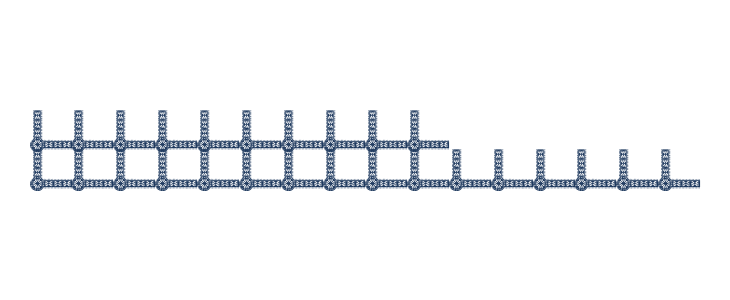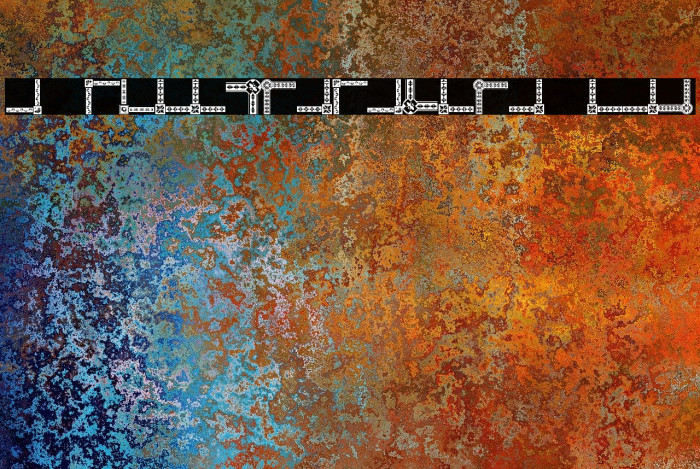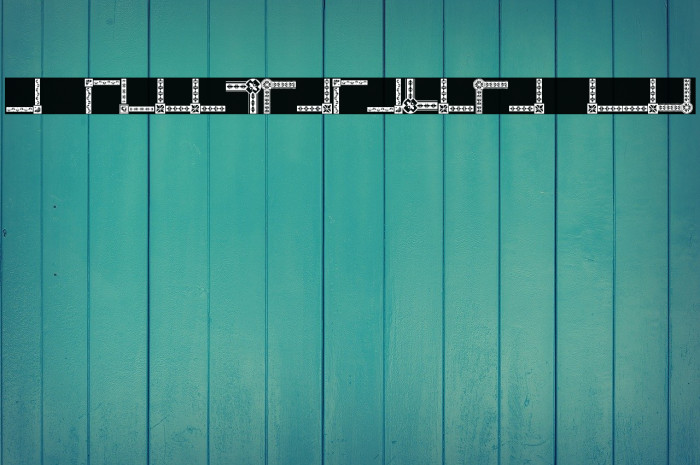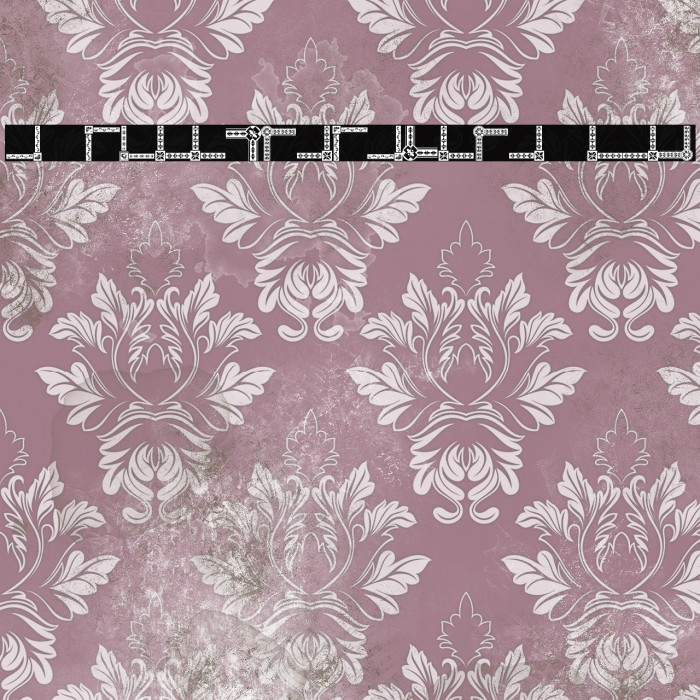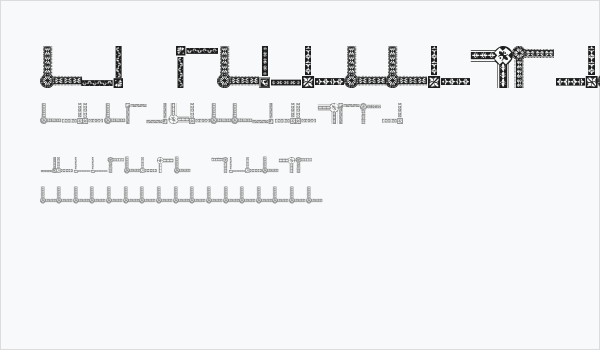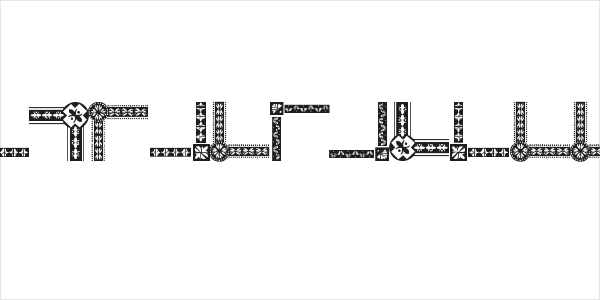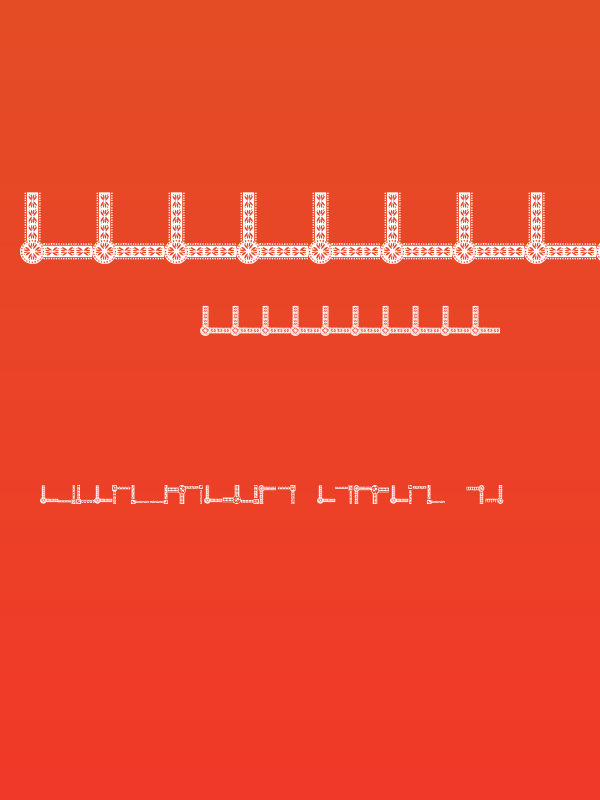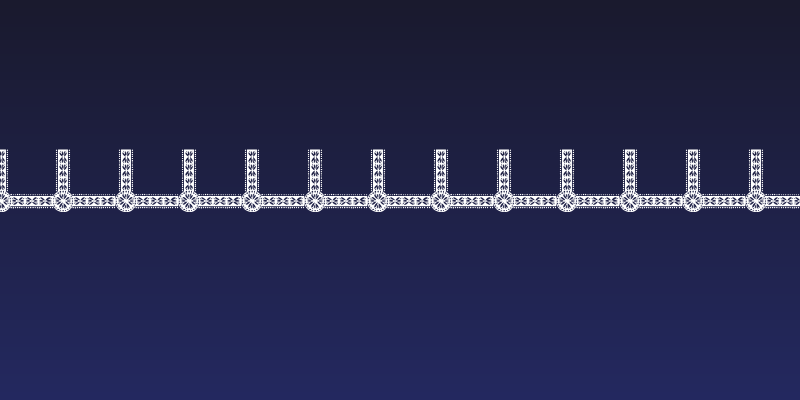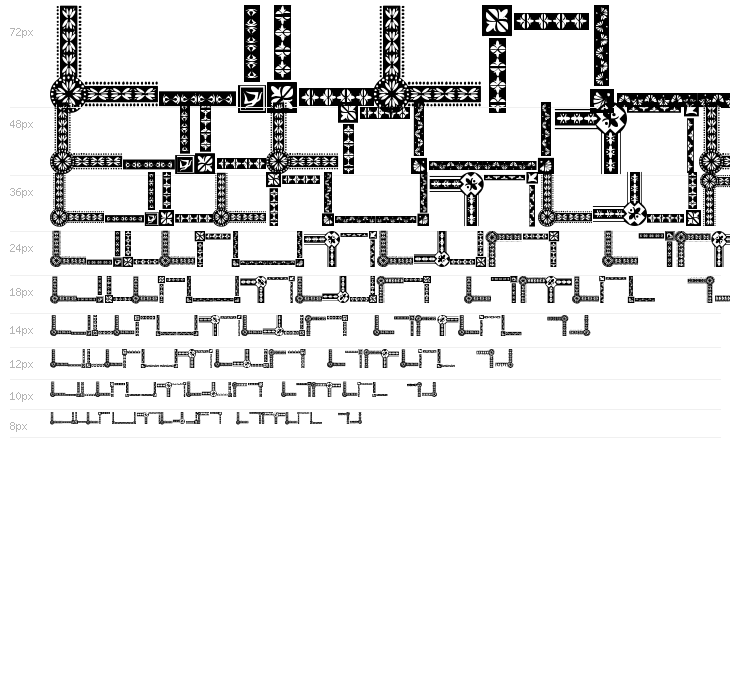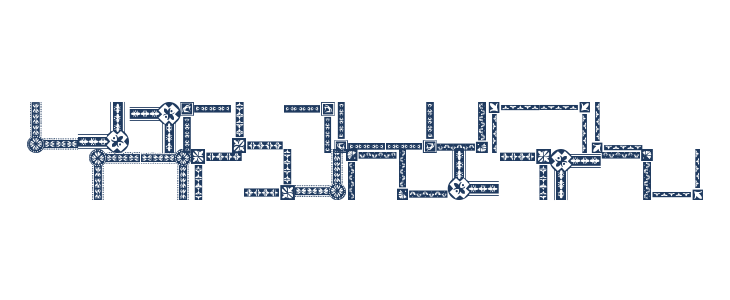
Vintage Decorative Corners 18 Font
Vintage Decorative Corners 18 Description
Highly ornamental, geometric corner and border elements with intricate detailing and vintage flair, featuring repeating patterns and decorative motifs suitable for embellishing layouts.
| Overall Style | Vintage, Decorative |
| Use Case | Borders, Frames, Decorative accents |
| Proposed Projects | Invitations, certificates, book covers, vintage posters, decorative frames, scrapbooking, and ornamental dividers. |